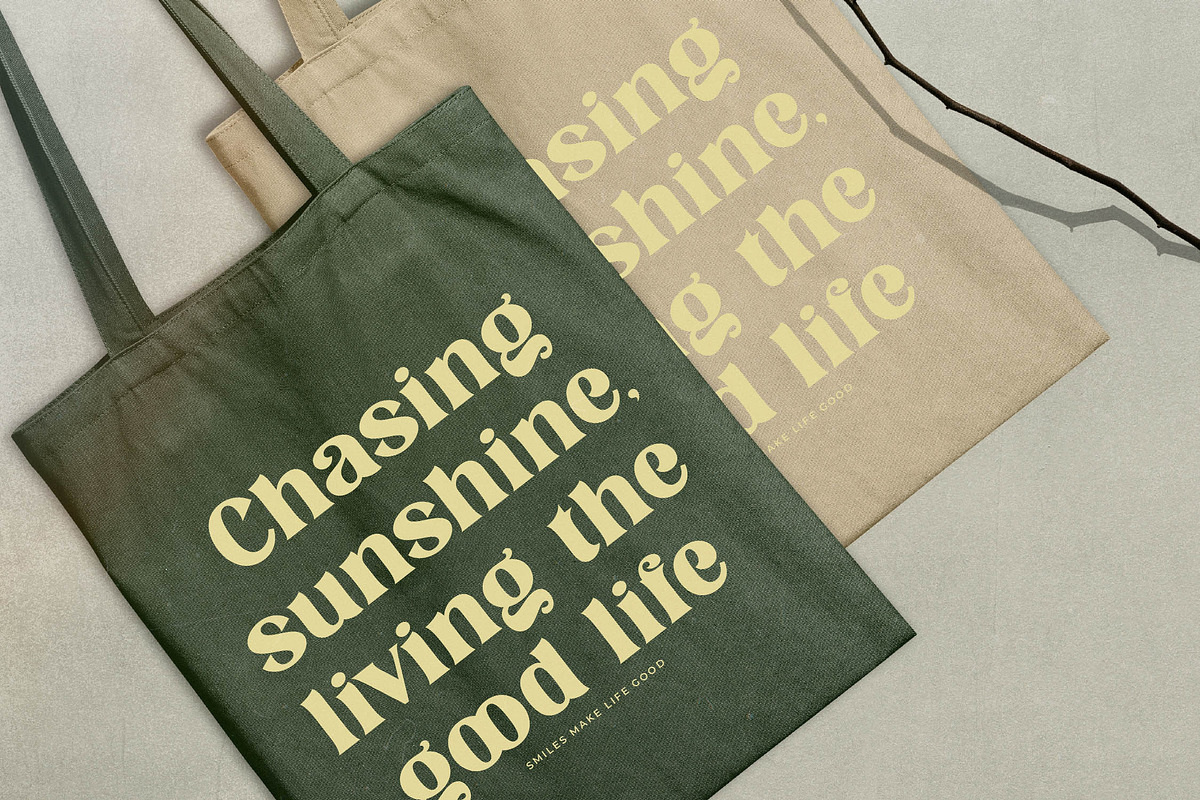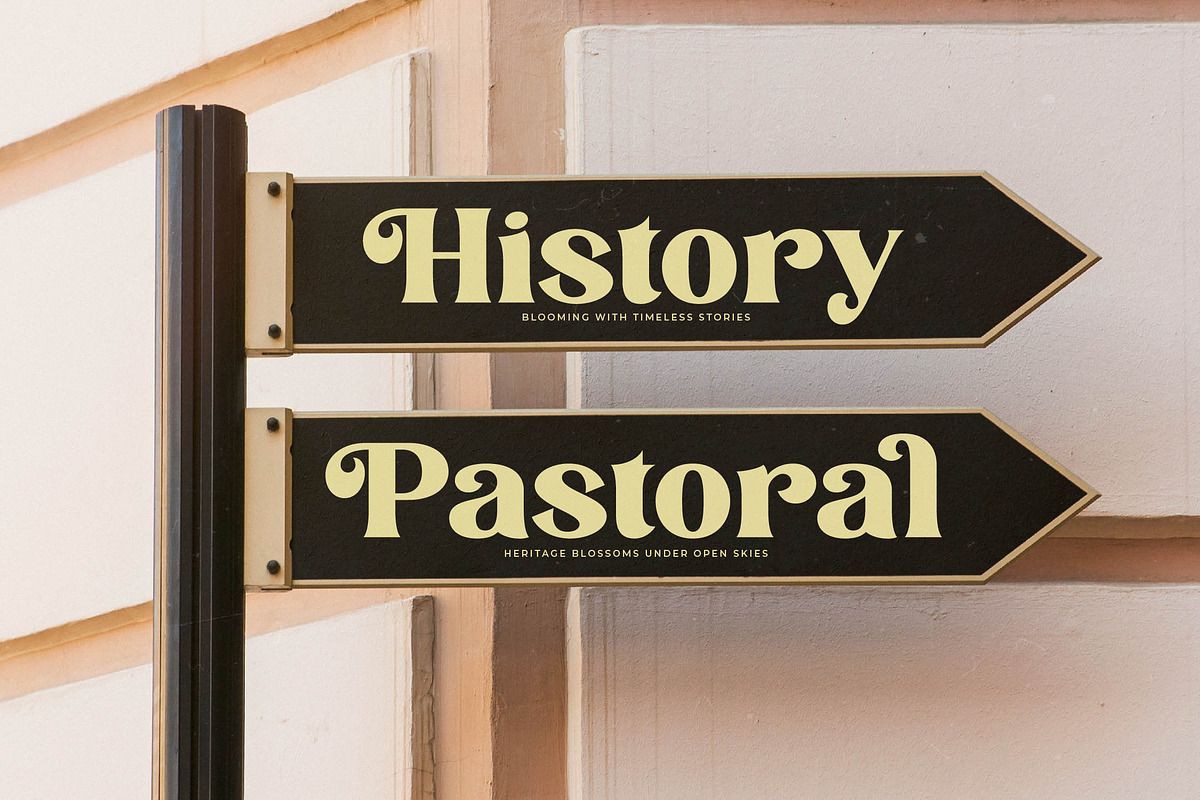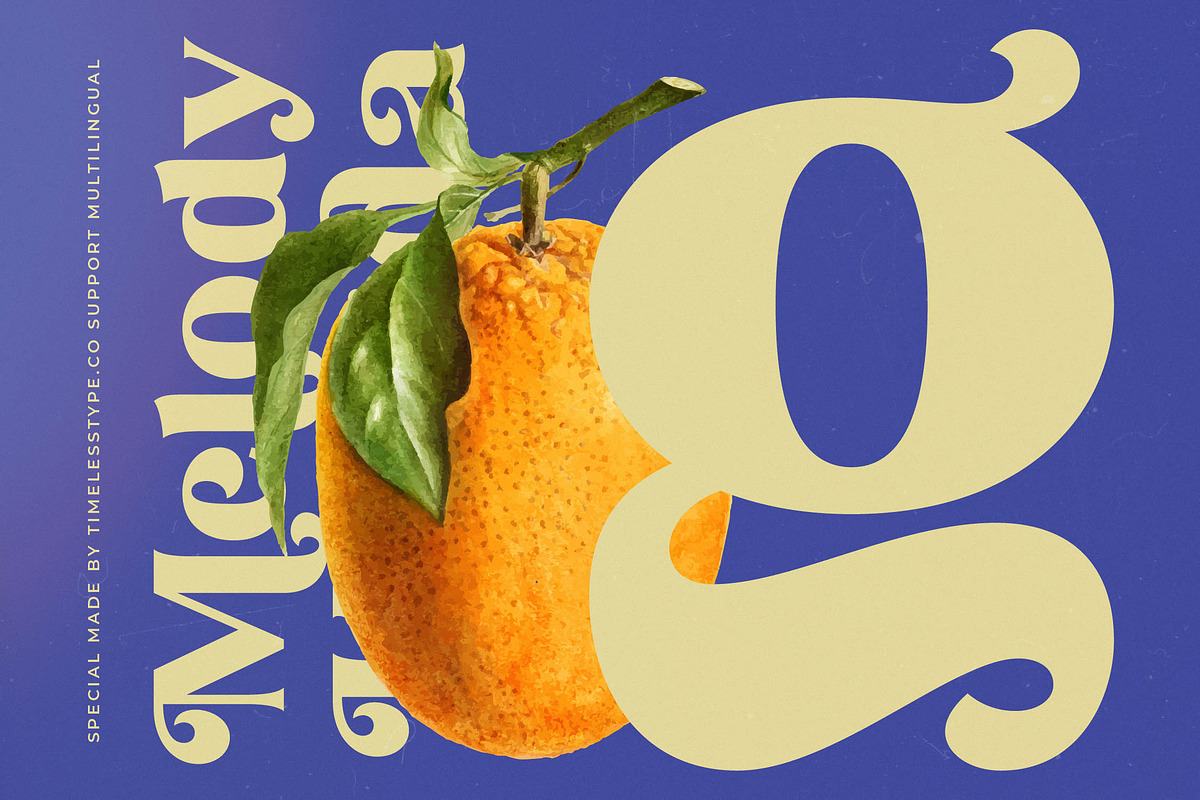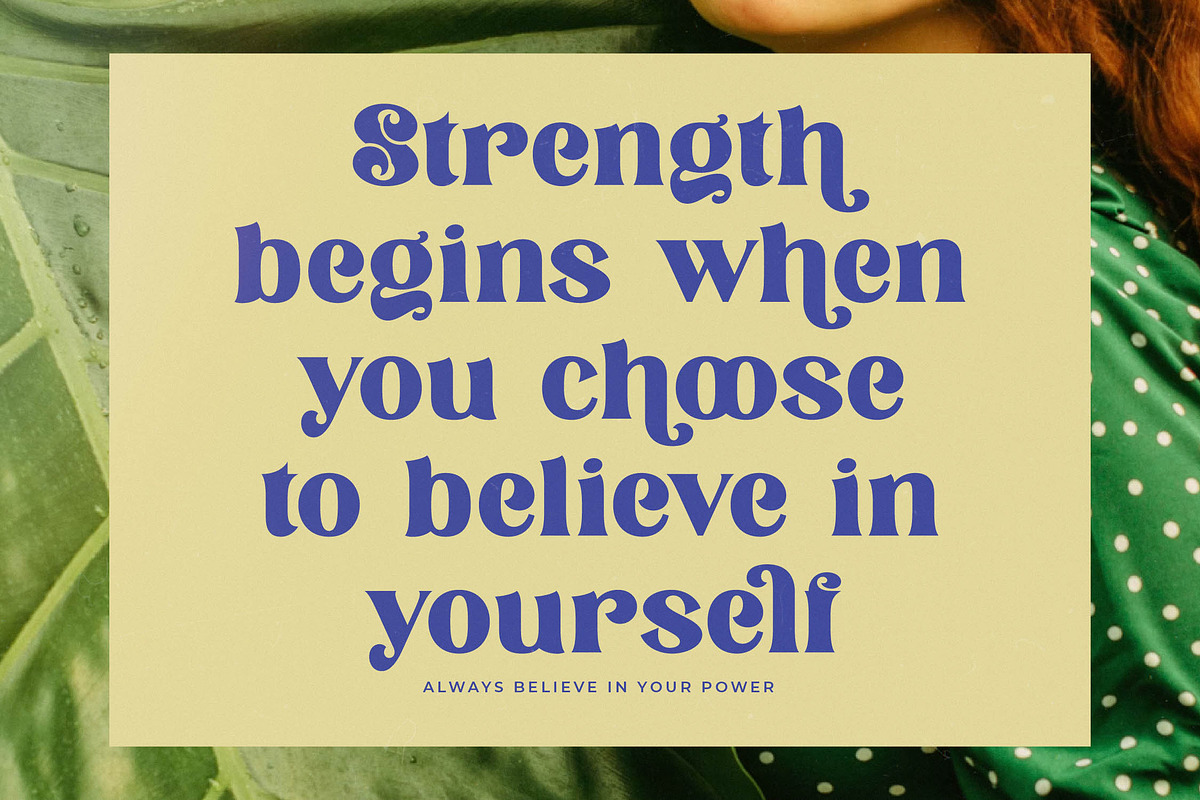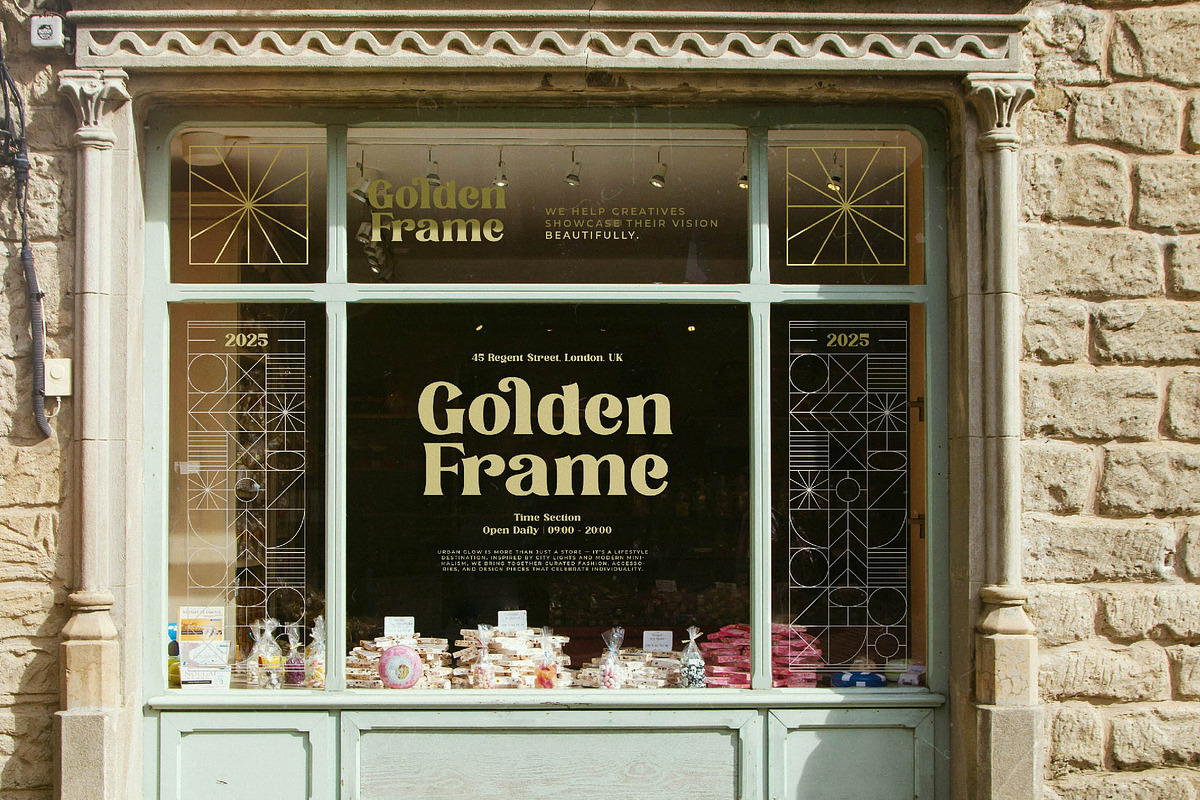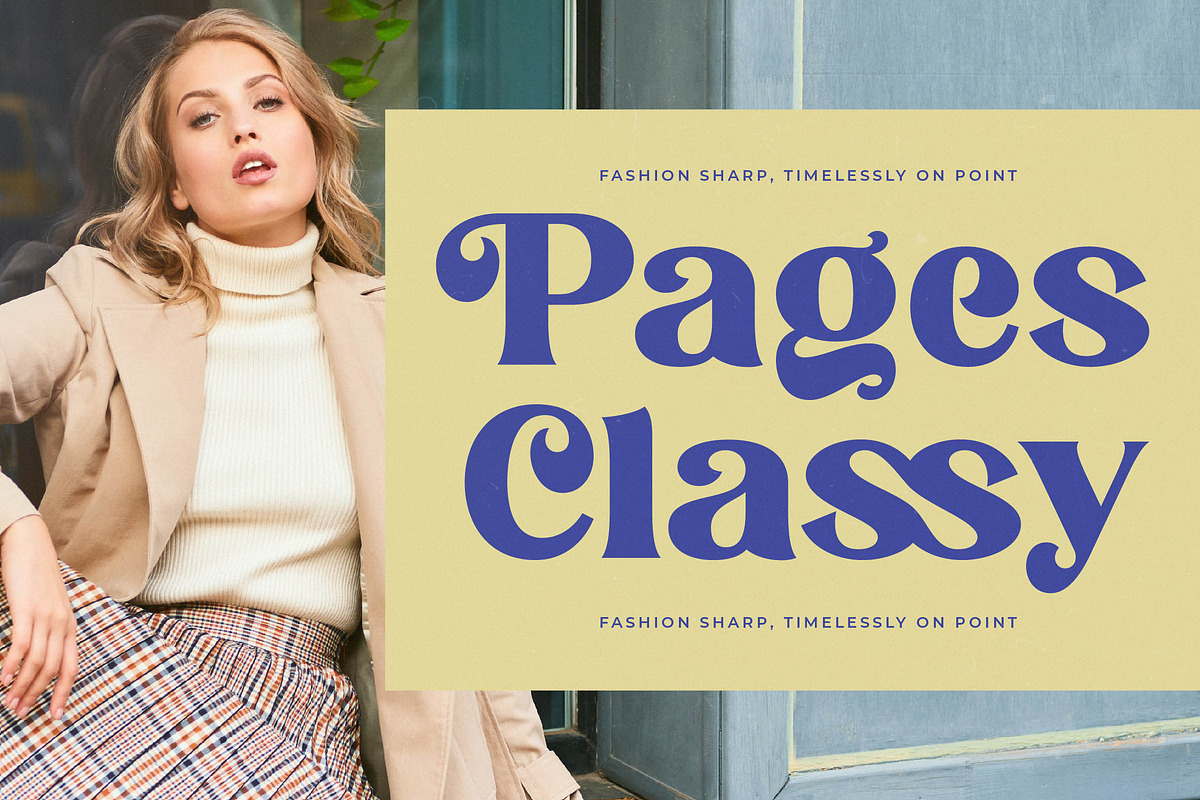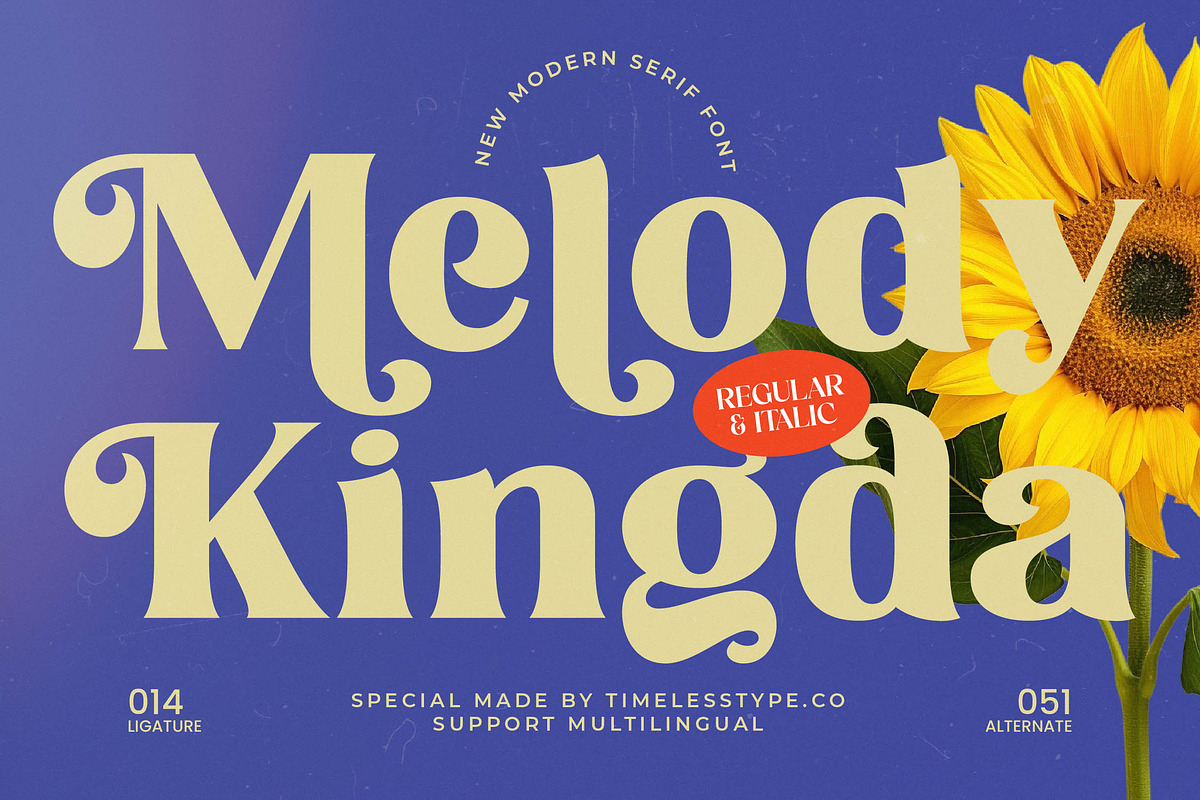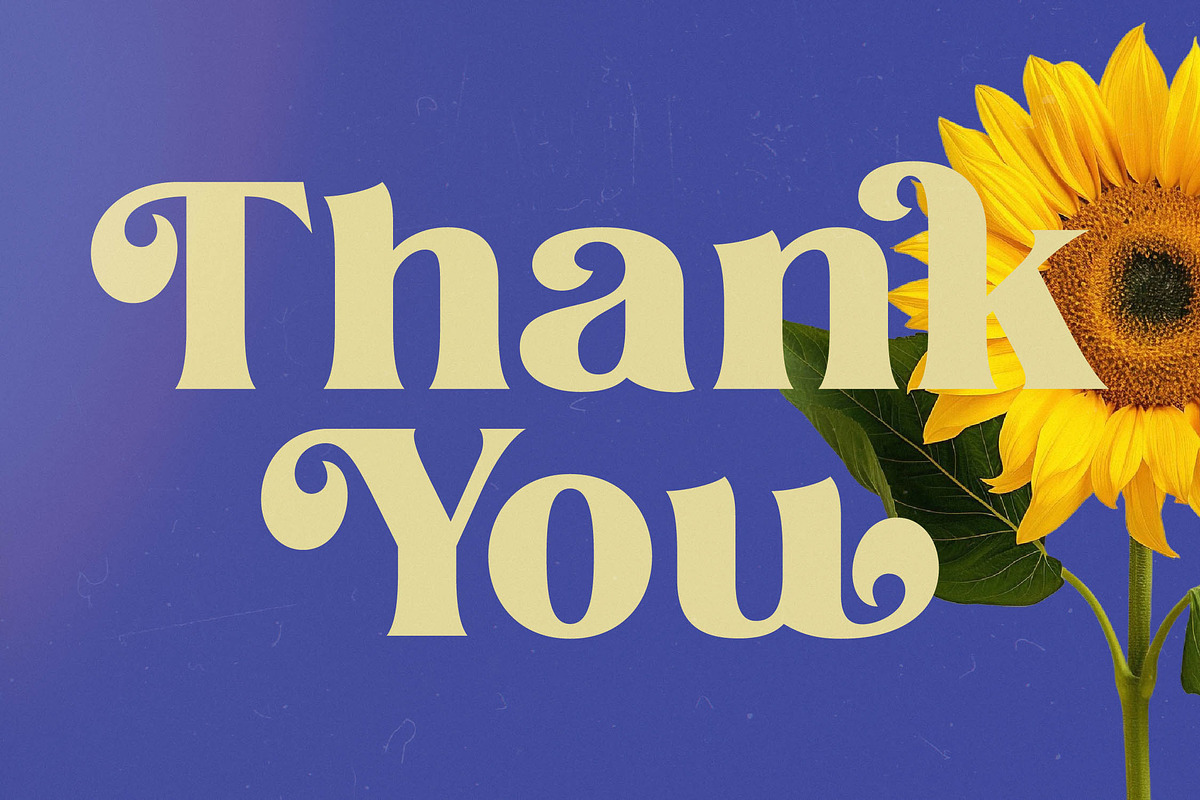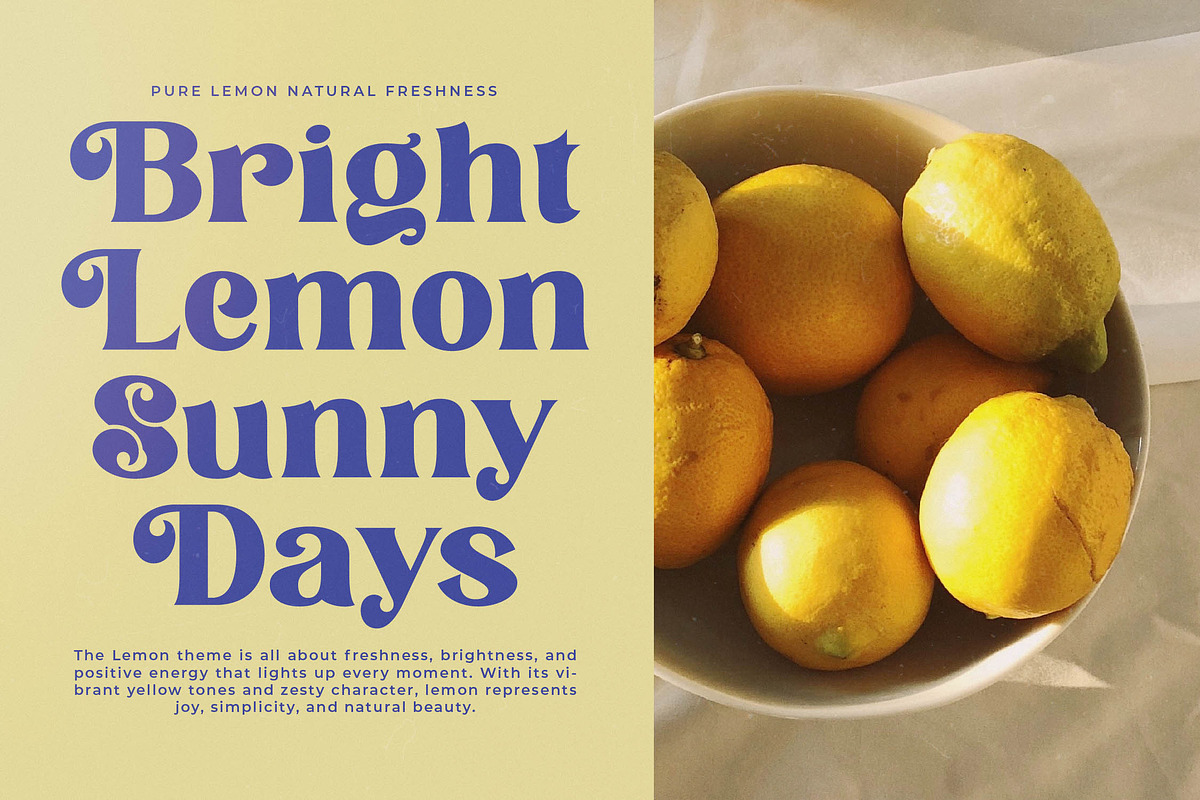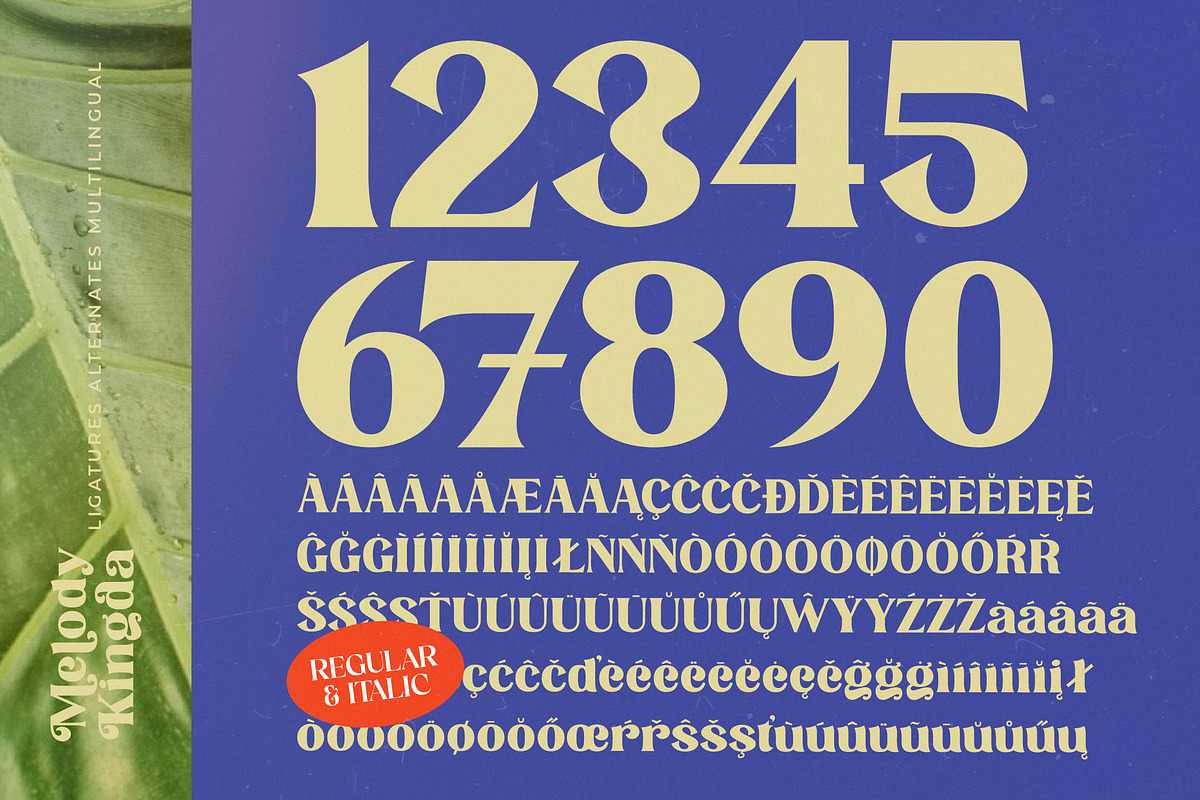
Melody Kingda Modern Retro Serif
Elevate your creative vision with the mesmerizing curves and timeless charm of Melody Kingda, a font designed to leave a lasting impression. This typeface strikes the perfect balance between nostalgic warmth and contemporary sophistication for discerning designers.
Drawing inspiration from the golden era of 1970s editorial design, this font captures the essence of sun-drenched afternoons and high-fashion magazines. Its rhythmic strokes and unique character forms evoke a sense of organic beauty and artisanal craftsmanship.
As a modern serif display choice, this typeface offers luxury typography that commands attention while maintaining an approachable grace. The high-contrast serif details ensure a powerful editorial font presence, delivering a significant branding impact for any high-end project.
Perfectly aligned with the current modern serif trend, this typeface fulfills the growing demand for editorial display fonts that feel both custom and curated. It stands at the forefront of character-driven typography, allowing designers to break away from sterile minimalism.
This versatile typeface is the ultimate solution for sophisticated logo design and comprehensive branding identity systems. Whether you are crafting high-end editorial layouts, premium packaging, romantic wedding stationery, or avant-garde fashion lookbooks, it adapts seamlessly to your creative needs.
Unlock a world of creative possibilities with a rich library of unique ligatures and decorative alternates that allow for custom-tailored layouts. The font is fully multilingual and includes comprehensive international characters to ensure your message reaches a global audience with elegant swashes and refined detail.
- Ligature 014 Alternate 051